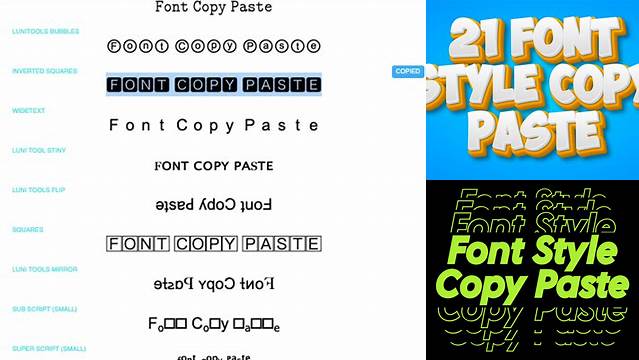
Free Online Font Design: Copy & Paste Styles
Hey guys! Ever wanted to jazz up your social media posts, presentations, or even just your everyday text messages with some cool and unique fonts? Well, you're in the right place! We’re diving deep into the world of font design online, and guess what? It’s all free, and you can copy and paste your way to a stylish masterpiece. Let’s explore how to create stunning text without needing to be a graphic design guru.
1. Understanding Free Online Font Design Tools
Free online font design tools are a game-changer for anyone looking to add a little pizzazz to their text. These platforms offer a vast array of font styles, from elegant scripts to bold, modern designs. The beauty of these tools lies in their simplicity and accessibility. You don't need to download any software or have prior design experience. Simply visit the website, type in your text, and browse through the available fonts. Most tools allow you to customize the font size, color, and even add special effects like shadows or outlines. This makes it incredibly easy to create eye-catching headlines, social media posts, or website content. For example, imagine crafting a unique logo for your personal blog or designing a captivating invitation for a party. The possibilities are endless. Furthermore, many of these tools are continuously updated with new fonts and features, ensuring you always have fresh options to explore. Free online font design tools empower you to express your creativity and make your text stand out from the crowd.
2. Exploring Different Font Styles
The world of fonts is vast and varied, offering a style for every occasion and personality. From the classic elegance of serif fonts to the clean, modern lines of sans-serif fonts, the choices can feel overwhelming. But that's a good thing! It means you have the power to select the perfect font to match your message and aesthetic. Serif fonts, with their small decorative strokes at the ends of the letters, often convey a sense of tradition, authority, and sophistication. Think of fonts like Times New Roman or Garamond, frequently used in books and formal documents. On the other hand, sans-serif fonts, which lack these strokes, are typically seen as more contemporary and approachable. Arial and Helvetica are popular examples, often used in website design and body text. Beyond these two main categories, you'll find script fonts that mimic handwriting, display fonts that are bold and attention-grabbing, and monospace fonts that are often used in coding. When exploring different font styles, consider the context in which your text will be used. A playful script font might be perfect for a birthday invitation, while a professional sans-serif font might be better suited for a business presentation.
3. Finding the Best Free Font Websites
4. Using Online Font Generators
Online font generators are the secret sauce for creating eye-catching text effects without needing any fancy design software. These tools are super user-friendly, allowing you to transform ordinary text into something extraordinary in just a few clicks. Imagine you want to create a cool logo for your gaming channel or a striking headline for your blog post. An online font generator can help you achieve this with ease. These generators offer a range of options, from simple font style changes to complex effects like 3D text, shadows, gradients, and even textured fonts. You can often customize the size, color, and spacing of your text, as well as add backgrounds and borders. Some generators also offer pre-designed templates that you can use as a starting point, which can be a great time-saver if you're feeling overwhelmed by choices. To effectively use online font generators, start by choosing a font style that aligns with your overall design aesthetic. Experiment with different effects to see what works best for your text. Remember to consider the readability of your text, especially if it will be displayed on a small screen or in a busy design. With a little creativity, you can use online font generators to create text that truly pops.
5. Copy and Paste Font Styles
One of the coolest features of many online font design tools is the ability to copy and paste font styles directly into your projects. This is a huge time-saver, especially if you're working on multiple platforms or if you want to maintain a consistent look across your designs. Imagine you've created a stunning social media post with a unique font style using an online generator. Instead of having to recreate the design from scratch in another platform, you can simply copy the text and paste it into your Instagram caption, Twitter update, or Facebook post. The font style will remain intact, ensuring a seamless and professional look. This copy-and-paste functionality works because many online font generators use Unicode characters, which are supported by most operating systems and applications. This means that the font style is essentially encoded within the text itself, allowing it to be transferred across different platforms without losing its formatting. When copying and pasting font styles, be mindful of the limitations of certain platforms. Some social media sites or email clients may not fully support all Unicode characters, which could result in your text appearing differently than intended. Always preview your text after pasting it to ensure it looks as expected.
6. Font Design for Social Media
Font design for social media is super important for grabbing attention and making your posts stand out in a crowded feed. Think about it – you’re scrolling through Instagram, and you see a post with a really cool, eye-catching font. It’s way more likely to make you stop and read, right? That’s the power of good font design. Different social media platforms often call for different font styles. For example, Instagram, with its visual focus, might benefit from bold, decorative fonts that instantly grab the eye. Twitter, on the other hand, with its emphasis on brevity and text-based communication, might be better suited for cleaner, more readable fonts. Platforms like LinkedIn, which are geared towards professional networking, typically call for more conservative font choices. When designing fonts for social media, it’s essential to consider your target audience. What kind of fonts will resonate with them? What’s the overall tone and message you’re trying to convey? A playful, handwritten font might be perfect for a brand targeting younger audiences, while a classic serif font might be more appropriate for a company aiming to project a sense of authority and expertise. Ultimately, the goal is to choose fonts that not only look great but also effectively communicate your message and reinforce your brand identity.
7. Creating Stylish Text for Instagram
Creating stylish text for Instagram is like adding the perfect accessory to your outfit – it can really elevate your overall look! On a visually-driven platform like Instagram, your text is just as important as your photos and videos. It’s your opportunity to add personality, convey your message, and connect with your audience. Instagram itself offers a limited selection of font styles, but that doesn't mean you're stuck with boring text. There are tons of free online tools and apps that allow you to generate stylish text and copy it directly into your Instagram captions, stories, and bio. These tools offer a vast array of font styles, from elegant scripts to bold, modern designs, and even quirky, playful fonts. When creating stylish text for Instagram, consider your brand identity and the overall aesthetic of your feed. Do you want your text to be bold and attention-grabbing, or subtle and sophisticated? Experiment with different font styles and colors to see what resonates best with your audience. Remember that readability is key. While a fancy font might look cool, it won't do you much good if your followers can't easily read your message. Use stylish text sparingly, and always prioritize clarity and conciseness.
8. Font Generators for Facebook
Facebook, with its massive user base and diverse content, offers a unique opportunity to use fonts to your advantage. Whether you're crafting a personal post, updating your business page, or creating an ad campaign, the right font can make your text stand out and grab attention. While Facebook has its own set of default fonts, they can sometimes feel a little… well, basic. That's where font generators for Facebook come in handy. These tools allow you to create stylish text that you can easily copy and paste into your Facebook posts and comments. The key to effectively using font generators for Facebook is to choose fonts that are both visually appealing and readable. Facebook users are scrolling through their feeds quickly, so you need to make sure your text is easy to digest at a glance. Bold fonts, unique scripts, and even decorative fonts can be effective, but always prioritize clarity and conciseness. Think about the context of your post. A playful, informal font might be perfect for a personal update, while a more professional font might be better suited for a business announcement. As with any design element, it's essential to consider your target audience and the message you're trying to convey. Ultimately, the goal is to use fonts to enhance your content and engage your audience.
9. Twitter Font Styles
Twitter, the land of 280-character thoughts, might seem like an unlikely place for font experimentation. But guess what? Even in this concise format, font styles can play a crucial role in grabbing attention and conveying your message effectively. While Twitter itself doesn’t offer built-in font styling options, you can use online font generators to create stylish text and copy it into your tweets. This is a great way to make your tweets stand out in a fast-paced feed and add a touch of personality to your profile. When it comes to Twitter font styles, readability is paramount. Since tweets are typically consumed on small screens and in quick bursts, it's essential to choose fonts that are clear and easy to read at a glance. Bold fonts and clean sans-serif styles tend to work well on Twitter. Avoid overly decorative or intricate fonts that might be difficult to decipher. Think about your brand identity and the overall tone you want to project. A playful, informal font might be perfect for a personal account, while a more professional font might be better suited for a business account. Remember that Twitter is all about brevity, so use font styles sparingly and strategically to emphasize key words or phrases.
10. Font Design for Websites
Font design for websites is a critical aspect of web design. Your choice of fonts can significantly impact the user experience, brand perception, and even the overall effectiveness of your website. Think of fonts as the voice of your website – they communicate your brand personality and help guide visitors through your content. A well-chosen font can make your website look professional, trustworthy, and engaging, while a poorly chosen font can make it look amateurish and difficult to read. When designing fonts for websites, there are several key factors to consider. Readability is paramount. Your website's text should be easy to read on various devices and screen sizes. Clean, sans-serif fonts are often a safe bet for body text, while headings and subheadings can be a great place to experiment with more decorative fonts. Think about your brand identity and the overall tone you want to convey. A minimalist website might benefit from a sleek, modern font, while a more traditional website might call for a classic serif font. Consider your target audience and the kind of fonts they'll find appealing. Ensure that your font choices align with your brand values and resonate with your visitors. With careful consideration, you can create a website that not only looks great but also effectively communicates your message.
11. Font Pairing Techniques
Font pairing techniques are the secret weapon of skilled designers. Combining fonts effectively can elevate your design from good to stunning, creating visual harmony and hierarchy. However, pairing fonts can be tricky – choosing the wrong combination can make your design look cluttered and unprofessional. The key is to find fonts that complement each other, creating a balance and visual interest without clashing. A classic font pairing strategy is to combine a serif font with a sans-serif font. The contrast between the two styles can create a visually appealing effect. For example, you might pair a classic serif font like Garamond for headings with a clean sans-serif font like Helvetica for body text. When exploring font pairing techniques, consider the overall mood and message you want to convey. Do you want your design to feel formal and sophisticated, or casual and approachable? Choose fonts that align with your desired tone. Pay attention to the font weights and sizes. Using different weights and sizes can help create a visual hierarchy and guide the reader's eye through your design. Experiment with different combinations and trust your instincts. With practice, you'll develop an eye for font pairing and be able to create designs that are both visually appealing and effective.
12. Typography Tips for Beginners
Typography tips for beginners are the building blocks of good design. Understanding the basics of typography can transform your work, making your designs more professional, readable, and visually appealing. Typography is more than just choosing fonts; it's about how you arrange and style text to communicate your message effectively. One of the most important tips for beginners is to prioritize readability. Your text should be easy to read on various devices and screen sizes. Choose fonts that are clear and legible, and pay attention to factors like font size, line height, and letter spacing. Another essential tip is to limit your font choices. Using too many fonts in a single design can create a cluttered and confusing look. Stick to a maximum of two or three fonts, and make sure they complement each other. Mastering typography techniques is an ongoing process, but these foundational tips will set you on the right path. With practice and attention to detail, you can create designs that are both visually stunning and highly effective.
13. Font Size and Readability
Font size and readability are intrinsically linked when it comes to effective design. The size of your fonts directly impacts how easily your text can be read, and readability is crucial for conveying your message and engaging your audience. If your fonts are too small, people will strain their eyes to read them, which can lead to a frustrating and off-putting experience. On the other hand, if your fonts are too large, your text can appear overwhelming and visually unappealing. Finding the sweet spot is key. When considering font size and readability, it’s crucial to think about the context in which your text will be displayed. For example, the optimal font size for a website might be different from the optimal font size for a printed document. Factors like screen size, viewing distance, and the amount of text on a page can all influence your font size choices. As a general guideline, body text on websites should typically be between 16 and 18 pixels, while headings and subheadings can be larger. Ultimately, the best way to determine the ideal font size is to test it out. View your design on different devices and screen sizes, and ask for feedback from others. Prioritizing font size and readability will ensure that your message is clear, engaging, and accessible to a wide audience.
14. Online Font Editor Tools
Online font editor tools are powerful resources for anyone looking to customize fonts or even create their own unique typefaces. These tools offer a range of features, from basic font editing to advanced design capabilities, all within a web browser. This means you don’t need to download any software or invest in expensive design programs. Whether you want to tweak an existing font to better suit your project or craft a completely original typeface from scratch, an online font editor can help you bring your vision to life. Many online font editors offer features such as glyph editing, kerning adjustments, and the ability to add custom ligatures. You can also adjust the font’s weight, width, and slant, as well as add stylistic alternates and special characters. Some tools even allow you to import and export fonts in various formats, making it easy to use your creations in different design applications. Effectively leveraging online font editor tools requires a bit of practice and familiarity with typography principles. Experiment with different features and settings to see how they impact the overall look and feel of your font. Consider the intended use of your font and design accordingly. A font designed for headlines might have different characteristics than a font designed for body text. With dedication and creativity, you can use online font editors to create truly unique and expressive typefaces.
15. Creating Custom Fonts Online
Creating custom fonts online is a fantastic way to add a unique and personal touch to your designs. Imagine having a font that is entirely your own, reflecting your brand identity or personal style. With the rise of online font editors and generators, this is now more accessible than ever. You don't need to be a professional typographer to design your own fonts. Online tools provide user-friendly interfaces and a range of features that make the process surprisingly straightforward. The ability to craft unique font styles online opens up a world of possibilities for branding, creative projects, and even personal expression. Whether you want to design a font for your logo, website, or social media graphics, a custom font can help you stand out from the crowd and create a memorable visual identity. When embarking on online custom font design, it’s important to have a clear vision of what you want to achieve. Consider the overall style and message you want to convey with your font. Sketch out your ideas and experiment with different letterforms. Pay attention to details like the stroke width, serifs, and overall balance of your letters. Remember that readability is key, so be sure to test your font in different sizes and contexts. With practice and creativity, you can design a custom font that is truly one-of-a-kind.
16. Font Conversion Tools
Font conversion tools are the unsung heroes of the design world. These handy utilities allow you to convert fonts from one format to another, ensuring compatibility across different platforms and applications. Imagine you've downloaded a beautiful font in a specific format, but your design software only supports a different format. This is where font conversion tools come to the rescue. They can seamlessly transform your font into the required format, allowing you to use it without any hassles. The ability to manipulate font formats effectively can save you time, effort, and frustration. Different font formats, such as TTF (TrueType Font), OTF (OpenType Font), and WOFF (Web Open Font Format), have their own strengths and limitations. TTF is a widely supported format that works well on most operating systems. OTF is a more advanced format that offers improved scalability and support for complex typographic features. WOFF is specifically designed for web use, providing efficient compression and optimal performance. Font conversion tools help maintain the versatility and usability of font files. When choosing a font conversion tool, consider factors like ease of use, supported formats, and the quality of the conversion. A good tool will accurately convert your font without introducing any distortions or errors. With a reliable font conversion tool in your toolkit, you can confidently work with fonts in any format.
17. Font Licensing and Usage Rights
Font licensing and usage rights can be a complex and sometimes confusing aspect of font design. However, understanding the basics of font licensing is crucial for ensuring that you use fonts legally and ethically. Fonts, like any other creative work, are protected by copyright law. This means that you typically need a license to use a font, especially for commercial purposes. The licensing terms dictate how you can use the font, including whether you can use it for print, web, embedding in documents, or creating derivative works. Navigating font usage limitations is essential for designers and anyone working with fonts. There are different types of font licenses, ranging from free licenses to commercial licenses. Free licenses often allow you to use a font for personal projects, but they may have restrictions on commercial use. Commercial licenses, on the other hand, typically grant you broader usage rights, including the ability to use the font for business projects. Understanding legal font usage matters greatly to avoid copyright infringement and associated penalties. Before using a font, always carefully review the licensing terms to ensure that you comply with the restrictions. If you're unsure about the terms of a license, it's best to err on the side of caution and contact the font designer or foundry for clarification. By respecting font licensing and usage rights, you can support the creators of these valuable design assets and ensure that you're using fonts legally and ethically.
18. Font Design for Logos
Font design for logos is a critical element of branding. Your logo is the visual cornerstone of your brand identity, and the font you choose plays a significant role in conveying your brand personality and values. A well-designed logo font can create a strong and lasting impression, while a poorly chosen font can undermine your brand message. When considering fonts for brand identities, it’s essential to think about the overall tone and style you want to project. Do you want your brand to be seen as modern and innovative, or classic and trustworthy? Your font choice should align with your brand’s core values and target audience. Fonts used in professional logos range widely depending on the industry and brand vision. A tech startup might opt for a sleek, sans-serif font, while a luxury brand might prefer an elegant serif font. Effectively applying fonts to logo design goes beyond simply choosing a visually appealing typeface. You also need to consider factors like readability, scalability, and versatility. Your logo font should be legible in both small and large sizes, and it should work well across various media, from business cards to websites. It's often a good idea to experiment with different font weights and styles to see what works best for your logo. With careful consideration and attention to detail, you can choose a logo font that perfectly captures the essence of your brand.
19. Font Design for Print Materials
Font design for print materials requires a slightly different approach than font design for digital media. While readability is always paramount, there are specific considerations to keep in mind when designing for print. Factors like the printing process, paper quality, and the amount of text on a page can all influence your font choices. The ability to choose appropriate fonts for physical media hinges on several factors. For instance, serif fonts, with their small decorative strokes, often work well in print because they can enhance readability and create a sense of formality. Sans-serif fonts, on the other hand, can be a good choice for shorter blocks of text or headlines. Optimizing typography for print media often involves careful attention to details like kerning and leading. Kerning refers to the spacing between individual letters, while leading refers to the spacing between lines of text. Adjusting these settings can significantly improve the readability and visual appeal of your printed materials. When deciding the best printing typography for your project, it’s essential to consider the printing method. For example, some printing methods may cause fine details to blur, so it's best to avoid using overly delicate or intricate fonts. Choose fonts that are robust and will reproduce well in print. With careful planning and attention to detail, you can create printed materials that are both visually stunning and highly effective.
20. Font Design for Mobile Devices
Font design for mobile devices is crucial in today's mobile-first world. With the vast majority of people accessing content on their smartphones and tablets, it’s essential to ensure that your fonts are optimized for smaller screens. The ability to adapt text styles for smaller screens requires careful consideration of readability, legibility, and overall user experience. Optimizing fonts for mobile usability often involves choosing fonts that are clean and clear, with ample spacing between letters and lines. Sans-serif fonts tend to work well on mobile devices because they are typically easier to read at smaller sizes. Mobile-responsive font choices are vital for ensuring that your text looks good on a variety of devices and screen resolutions. Font size is another important factor to consider. Text that is too small will be difficult to read, while text that is too large can overwhelm the screen. It’s generally recommended to use a larger font size for mobile devices than you would for desktop websites. When designing typography for mobile interfaces, it's also important to test your font choices on actual devices. This will give you a better sense of how your text looks and feels on different screens. By prioritizing readability and optimizing your fonts for mobile devices, you can create a user-friendly and engaging mobile experience.
21. Font Effects and Styles
Font effects and styles are the secret weapons for adding flair and personality to your designs. From subtle shadows to bold outlines, font effects can transform ordinary text into eye-catching masterpieces. However, it’s important to use font effects judiciously. Overdoing it can make your text look cluttered and difficult to read. The best way to apply emphasis using text decoration techniques is to use them sparingly. Exploring text embellishments and enhancements can bring a touch of creativity to your typography. A subtle drop shadow can add depth and dimension to your text, while a bold outline can make it stand out against a busy background. Gradients, textures, and other effects can also be used to create visually interesting text. Manipulating fonts and letterforms can create stunning visual effects that complement your design aesthetic. When experimenting with decorative text styles, it's important to consider the overall tone and style of your design. A playful font effect might be perfect for a children's book, while a more subtle effect might be better suited for a corporate website. Always prioritize readability and ensure that your font effects enhance your message, rather than detracting from it. With creativity and careful execution, you can use font effects to make your text truly shine.
22. Font Color and Contrast
Font color and contrast are fundamental aspects of typography that significantly impact readability and visual appeal. The color of your text and its contrast against the background can make or break your design. Poor color choices can make your text difficult to read, while effective color choices can enhance readability and draw the reader's eye. The key to optimizing text colors for readability is to ensure that there is sufficient contrast between the text and the background. High contrast combinations, such as black text on a white background or white text on a black background, are generally the easiest to read. Understanding color psychology in typography is critical in conveying the intended message. Effective use of text and background contrast ensures your message is clear and impactful. When selecting colors for different typographical compositions, consider your brand identity and the overall tone of your design. Warm colors, such as red and orange, can evoke feelings of energy and excitement, while cool colors, such as blue and green, can convey a sense of calm and tranquility. Use colors strategically to create visual hierarchy and guide the reader's eye through your design. Always test your color choices on different devices and screen sizes to ensure that your text is legible and visually appealing in all contexts.
23. Font Kerning and Spacing
Font kerning and spacing are subtle but critical aspects of typography that can significantly impact the readability and visual appeal of your text. Kerning refers to the spacing between individual letters, while spacing encompasses the overall space between words and lines of text. The ability to optimize character spacing for readability enhances text flow and message clarity. Effectively adjusting letter spacing creates a harmonious visual rhythm and prevents text from appearing too cramped or too sparse. When kerning your text, pay attention to the spaces between letters that appear too wide or too narrow. Adjust these spaces manually to create a more consistent and balanced look. Mastering typography alignment and kerning ensures consistent, professional text presentation. When enhancing text presentation by character manipulation, use letter-spacing to subtly influence the overall texture and readability of your text. In general, a tighter letter spacing can create a more formal and sophisticated look, while a looser spacing can create a more casual and approachable feel. Line spacing, also known as leading, is another important factor to consider. The amount of space between lines of text can affect readability and the overall visual density of your design. With careful attention to kerning and spacing, you can create typography that is both visually pleasing and highly readable.
24. Font Alignment and Justification
Font alignment and justification are fundamental principles of typography that dictate how text is arranged within a layout. The alignment and justification you choose can significantly impact the readability, visual appeal, and overall tone of your design. There are four primary types of text alignment: left-aligned, right-aligned, centered, and justified. Optimal text formatting for reading ease is often left-aligned text because it's often easiest to read due to the consistent starting point for each line. Utilizing alignment styles for visual hierarchy can help guide the reader’s eye through your design and create a clear visual hierarchy. Implementing justification techniques to achieve a professional layout ensures text flows uniformly and enhances the visual structure of your document. When manipulating font alignment for aesthetics, remember that each alignment style has its own strengths and weaknesses, and the best choice will depend on the specific context of your design. Left alignment is typically the most readable option for large blocks of text. Right alignment can be effective for shorter blocks of text or for callouts and captions. Centered alignment can be used for headings, subheadings, and invitations, but it should be used sparingly for body text. Justified alignment creates a clean, uniform look, but it can sometimes lead to uneven spacing between words, especially if hyphenation is not used correctly. With careful consideration of font alignment and justification, you can create designs that are both visually appealing and highly readable.
25. Free Font Resources for Commercial Use
Free font resources for commercial use are a boon for designers, entrepreneurs, and anyone who needs high-quality fonts without breaking the bank. Finding fonts that are both free and licensed for commercial use can be a challenge, but there are several excellent resources available online. A lot of sites are promoting royalty-free font options, which allow you to use the fonts in your commercial projects without paying any licensing fees. Selecting fonts suitable for commercial projects is crucial for ensuring that you are using them legally and ethically. Before using a free font in a commercial project, it’s essential to carefully review the licensing terms. Some free fonts may have restrictions on how they can be used, such as limitations on the number of projects or the types of products they can be used in. Legally utilizing fonts in business ventures helps you avoid copyright infringement and potential legal issues. When accessing various font license options, be sure to understand the difference between personal use and commercial use licenses. Personal use licenses typically allow you to use the font for non-commercial projects, while commercial use licenses grant you the right to use the font for business purposes. By taking the time to research and understand font licensing terms, you can confidently use free fonts in your commercial projects.
26. Font Design for Headlines and Titles
Font design for headlines and titles is paramount for capturing attention and conveying the essence of your message. Headlines and titles are the first thing that readers see, so it's crucial to choose fonts that are both visually appealing and highly readable. The ability to optimize fonts for prominent displays in titles and headings can significantly impact the effectiveness of your design. Implementing typography to maximize readability in headers ensures clear communication and visual interest. Selecting catchy fonts for main headers draws the reader in and makes them want to learn more. When choosing eye-catching typography for headlines, consider the overall tone and style of your design. Bold, impactful fonts often work well for headlines, while more elegant and refined fonts can be used for titles in more formal contexts. Use font size, weight, and style strategically to create a visual hierarchy and guide the reader's eye. In general, the headline font should be larger and more prominent than the body text font. By carefully selecting your fonts and using them effectively, you can create headlines and titles that grab attention and communicate your message with impact.
27. Font Design Trends in 2024
Font design trends in 2024 are shaping the future of typography and visual communication. Staying up-to-date on the latest font trends can help you create designs that are fresh, modern, and relevant. In 2024, we're seeing a continued emphasis on bold, impactful fonts, as well as a resurgence of retro and vintage styles. The need to adapt typography for modern aesthetics is crucial for designers looking to stay ahead of the curve. Following current typographical styles ensures that your designs resonate with contemporary audiences. Keeping pace with the evolution of typography means understanding the latest trends and incorporating them thoughtfully into your work. One of the key trends we're seeing in 2024 is the use of variable fonts. Variable fonts are a new font format that allows for greater flexibility and customization. They can be adjusted along multiple axes, such as weight, width, and slant, giving designers more control over the appearance of their text. Another trend is the use of handcrafted and hand-drawn fonts. These fonts add a personal and unique touch to designs, making them feel more authentic and approachable. By understanding and incorporating the latest font design trends, you can create designs that are both visually stunning and highly effective.
28. Advanced Typography Techniques
Advanced typography techniques are the secret sauce for taking your designs to the next level. These techniques go beyond the basics of font selection and layout, allowing you to create typography that is truly unique and impactful. Refining complex text styling techniques can transform ordinary text into visual masterpieces. Mastering typography manipulation tricks helps you add personality and flair to your designs, making them stand out from the crowd. One advanced technique is the use of ligatures. Ligatures are special characters that combine two or more letters into a single glyph. They can be used to create a more elegant and refined look, or to solve spacing issues in certain letter combinations. Another advanced technique is the use of stylistic alternates. Many fonts include stylistic alternates, which are alternative versions of certain characters. These alternates can be used to add visual interest and variety to your text. Skilled typography manipulations can significantly enhance readability and visual harmony. When leveraging specific font characteristics, such as size variations, you can elevate your design and convey your message effectively. Experiment with different techniques and combinations to discover your own unique style and create typography that truly shines.
29. Font Design for Accessibility
Font design for accessibility is a critical aspect of inclusive design. Ensuring that your fonts are accessible to people with disabilities, such as visual impairments, is essential for creating designs that are truly inclusive and user-friendly. The ability to enhance text legibility for all readers ensures that everyone can access and understand your message. Employing accessible design practices in typography helps you reach a wider audience and create a more inclusive user experience. Choosing fonts for visually impaired audiences requires careful consideration of factors like font size, contrast, and letter spacing. In general, it's best to use fonts that are clear and easy to read, with ample spacing between letters and lines. Avoid using overly decorative or intricate fonts, as these can be difficult for people with visual impairments to decipher. Font design that is WCAG compliant adheres to accessibility guidelines which include standards for contrast ratios and font sizes. By prioritizing font design for accessibility, you can create designs that are inclusive, user-friendly, and accessible to everyone.
30. Future of Font Design
The future of font design is bright and exciting, with new technologies and trends constantly shaping the landscape of typography. Variable fonts are likely to become even more prevalent in the coming years, offering designers unparalleled flexibility and customization. Artificial intelligence (AI) is also playing an increasingly important role in font design, with AI-powered tools being used to generate new fonts and automate various design tasks. Envisioning typography trends in future designs means embracing new possibilities and pushing the boundaries of what's possible. Emerging trends in typeface creation are making it easier than ever to create unique and expressive fonts. Predicting innovation in fonts and typography can be difficult, but one thing is certain: the future of font design will be driven by creativity, technology, and a desire to communicate effectively. By staying informed about the latest trends and technologies, designers can ensure that they are well-positioned to take advantage of the exciting opportunities that lie ahead. The impact of technology on typographical creativity is vast and continuously expanding, offering a wealth of creative avenues for future designs. As we move forward, font design will continue to evolve, shaping the way we communicate and interact with the world around us.